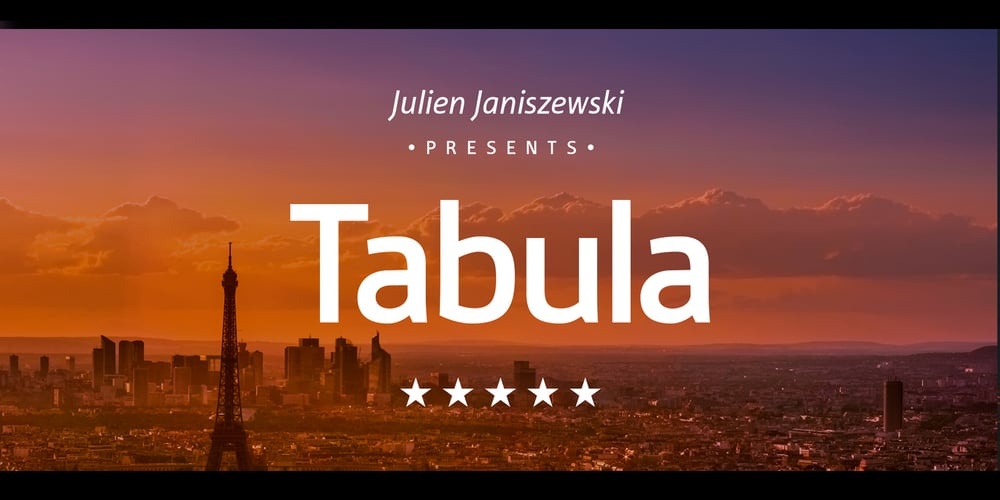
ITC Tabula
ITC Tabula font
ITC Tabula Font Family was designed by Julien Janiszewski and published by ITC. ITC Tabula contains 8 styles and family package options. ITC Tabula is meant to be read. The design grew out of a study to create a font to set film subtitles. According to Julien Janiszewski, the face’s Paris-based designer, “I set parameters for the design whereby the letters had to be able to hold up at very small sizes when set on film and yet must be able to be enlarged 2000 times to be read on a theatre screen.”The subtitle font was not completed, but several months later Janiszewski revisited the design and made a discovery. “I realized that the constraints I had established for the subtitling font was not that far from those people could have in creating typographic signage. Many time this calls for a font that can be used easily in very large sizes for headlines on highway billboards and quite small for text copy.” Work proceeded for two more years before Janiszewski was satisfied with the results.The final design is a somewhat squared sans serif family of four weighs with corresponding italics. Janiszewski also wanted to create what he calls a “sensitive sans-one that is not restricted to geometric shapes but has a subtle calligraphic, foundation.” ITC Tabula is not only easy to read, it is also a distinctive and handsome design.